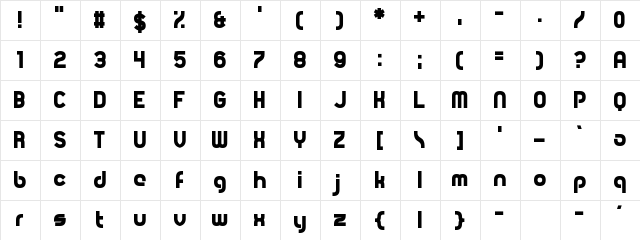
Drowsy Regular
Design Context for Drowsy Typeface
Drowsy offers clean, dependable letterforms without strong stylistic allegiance, making it a practical choice for designers who need flexibility.
Pro Tip: Pair Drowsy with a font of contrasting weight or personality to build a more expressive typographic hierarchy.